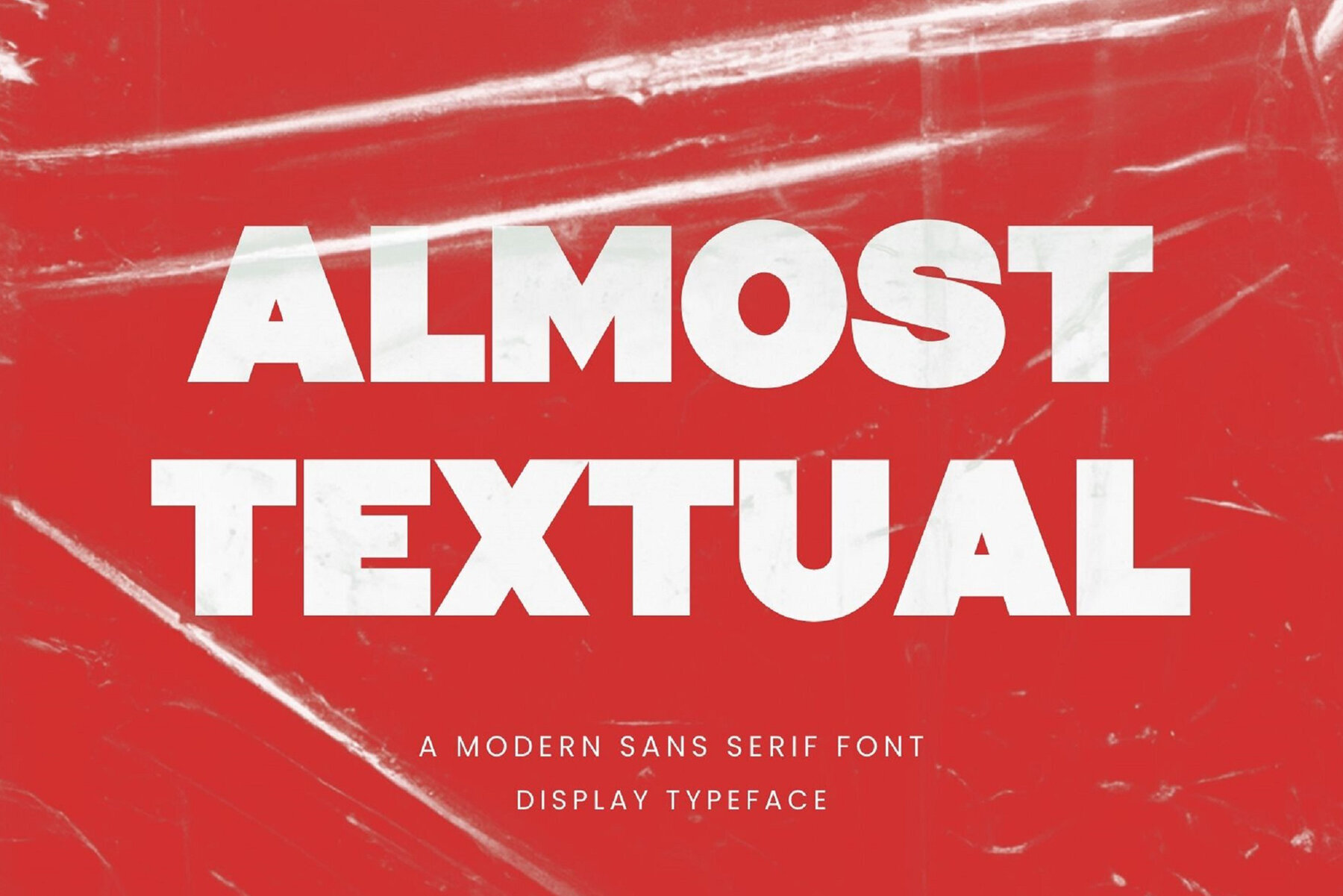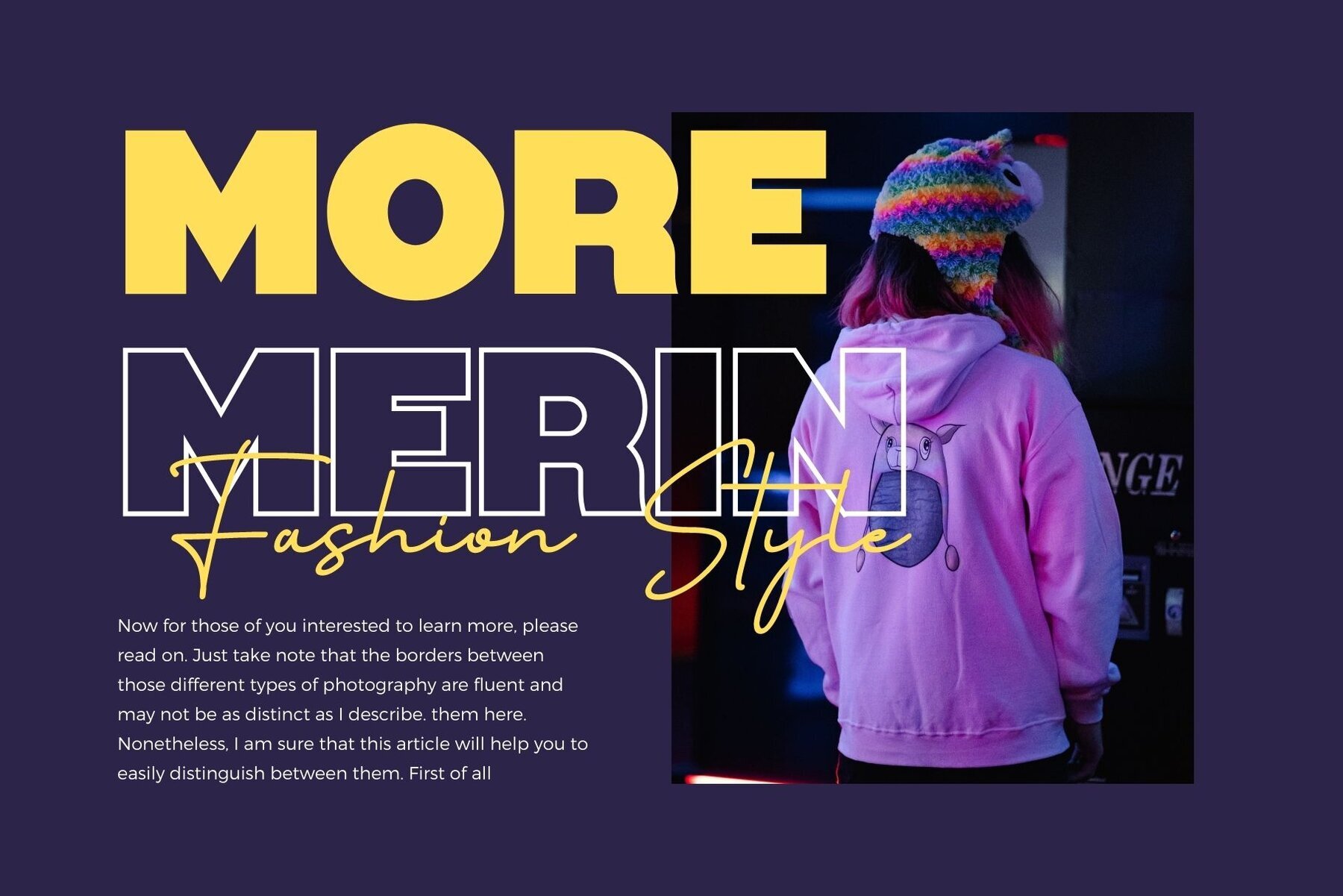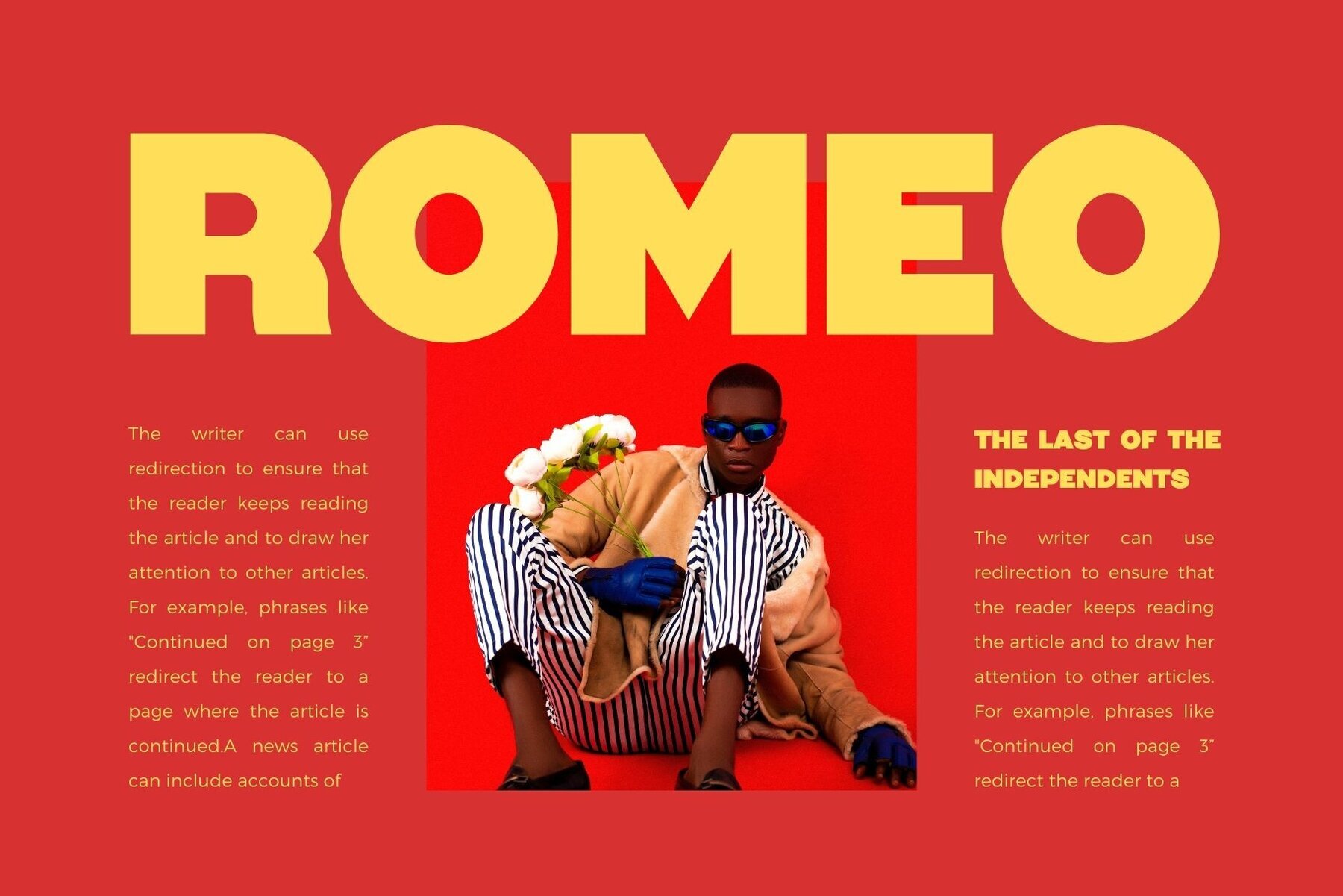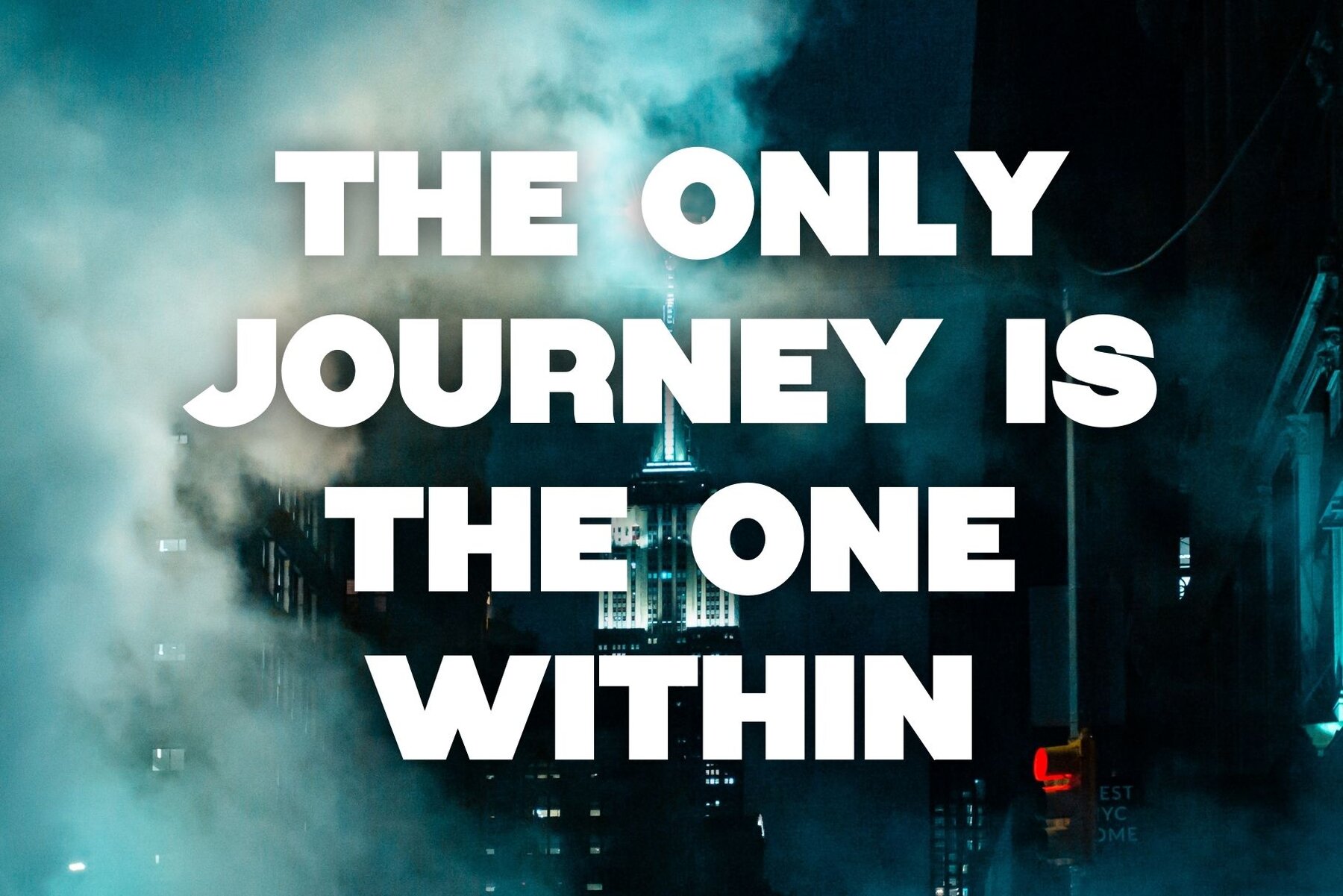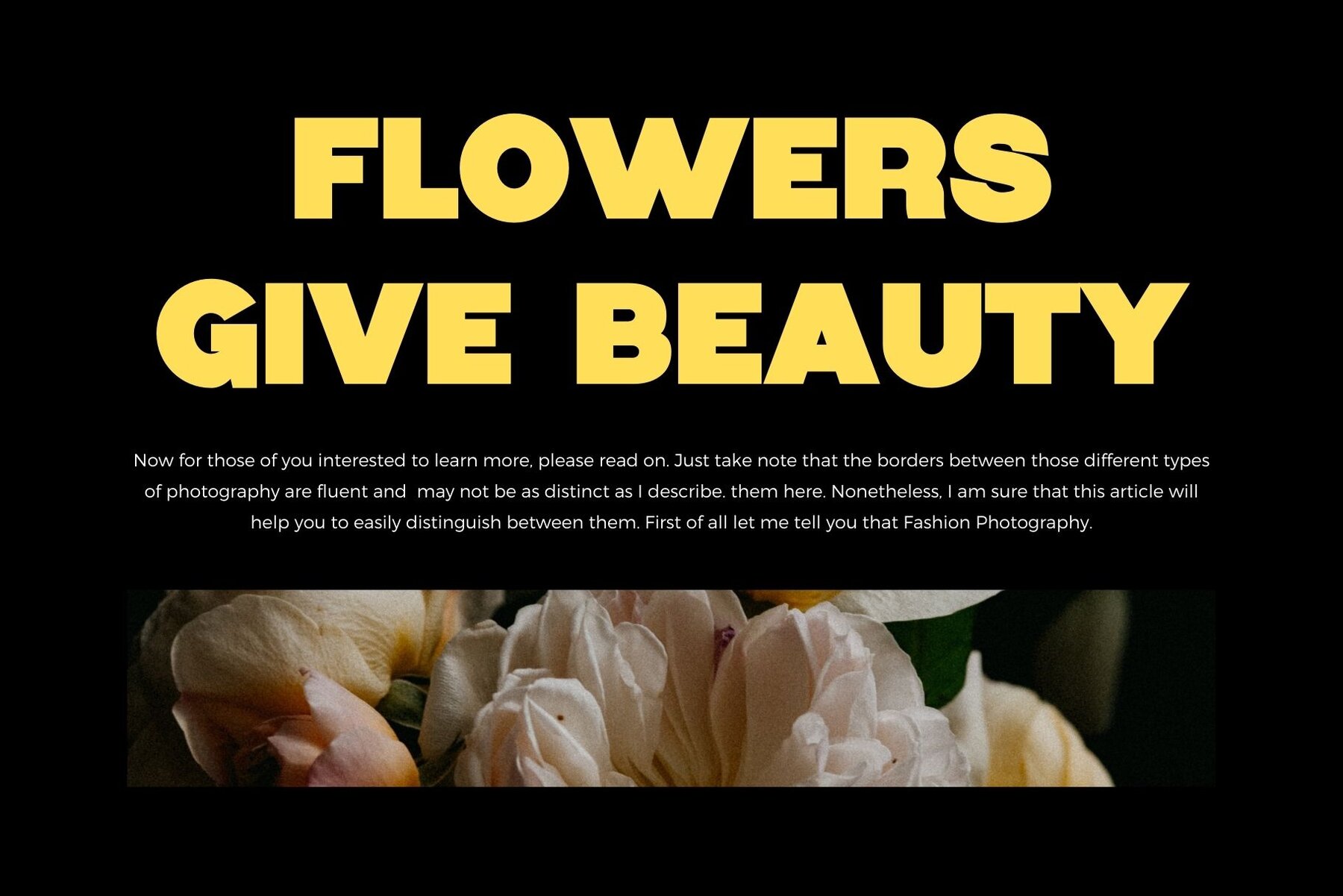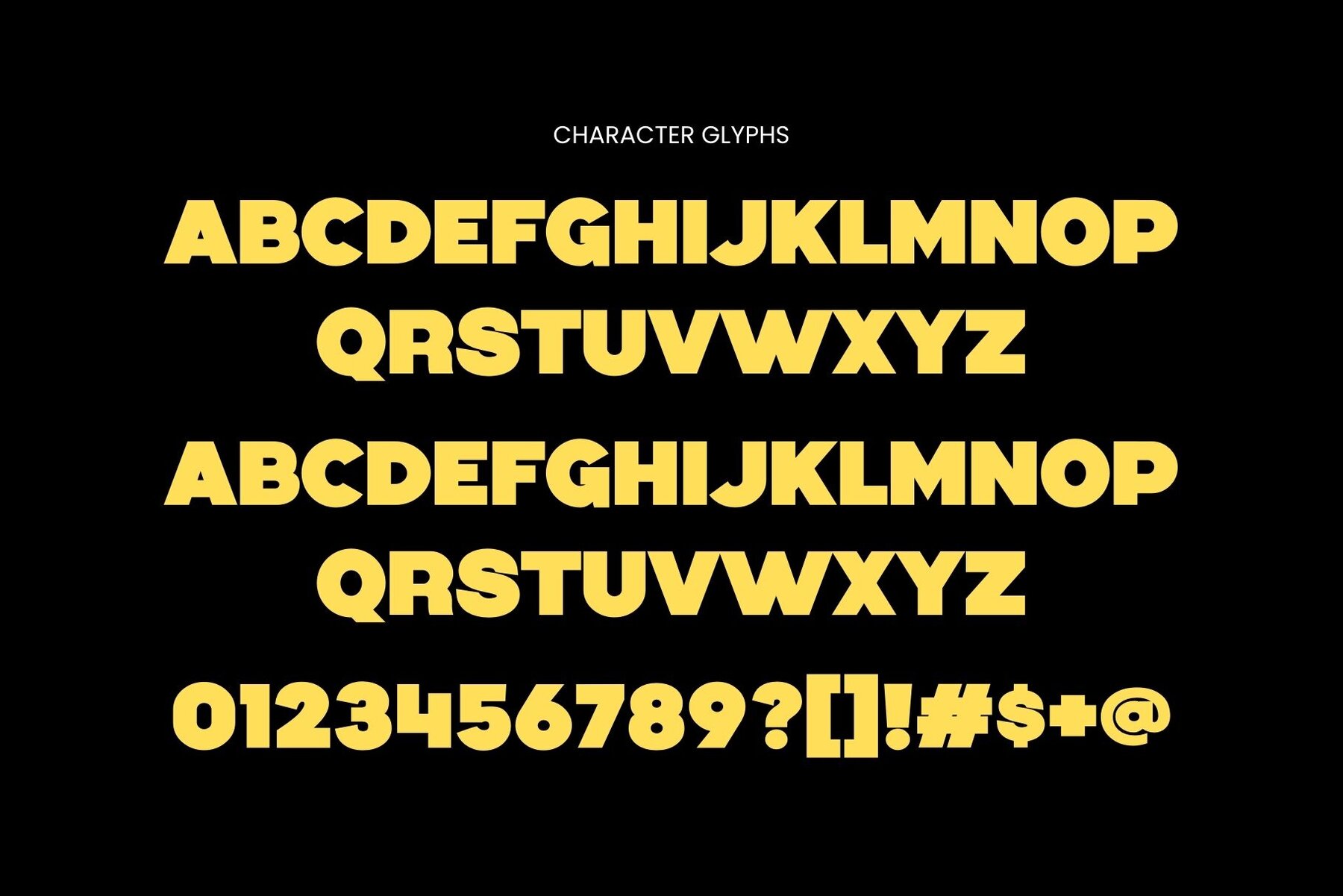
Almost Textual Font
Almost Textual
Almost Textual by Graphicxell is inspired by renowned minimalist logos, making it an ideal choice for contemporary design projects. Whether you're crafting templates, brochures, videos, or setting the stage for elegant branding, this typeface offers the perfect balance of simplicity and style.Almost Textual: The Minimalist Typeface for Versatile Design